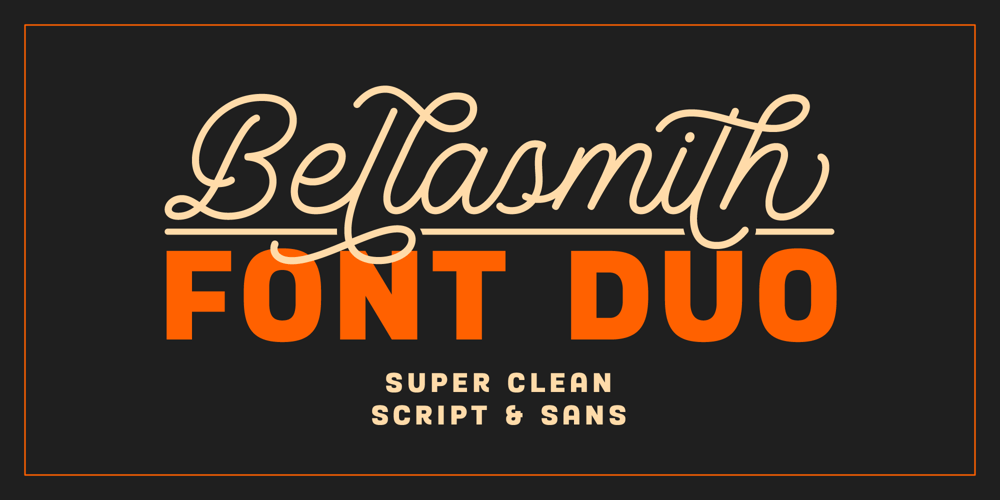
Bellasmith Font Family was designed by Angga Kristiandri and published by Abbasy Studio. Bellasmith contains 2 styles and family package options. Bellasmith, is a pair of bold sans and monoline script with a touch of vintage look. This script font comes with multiple alternates that will make your words look like a custom lettering. With additional sans font you will be able to create the beautiful combination. This type of font perfectly suitable for made to be applied especially in logo, and the other various formal forms such as invitations, labels, logos, magazines, books, greeting / wedding cards, packaging, fashion, make up, stationery, novels, labels or any type of advertising purpose.